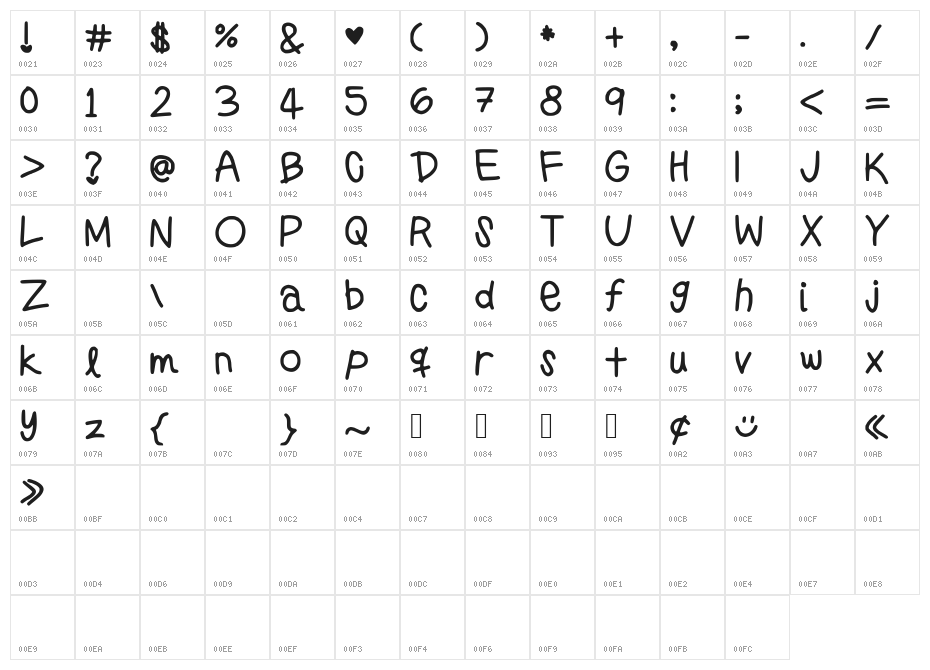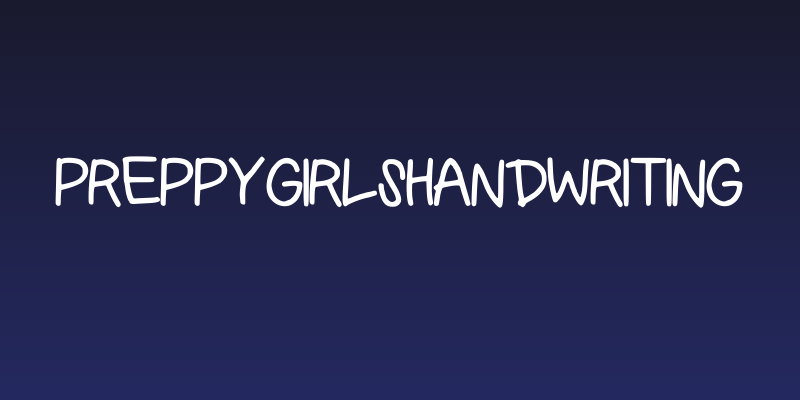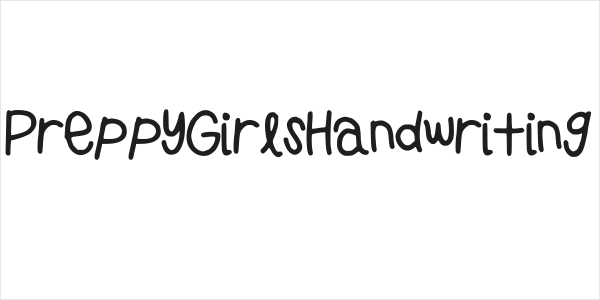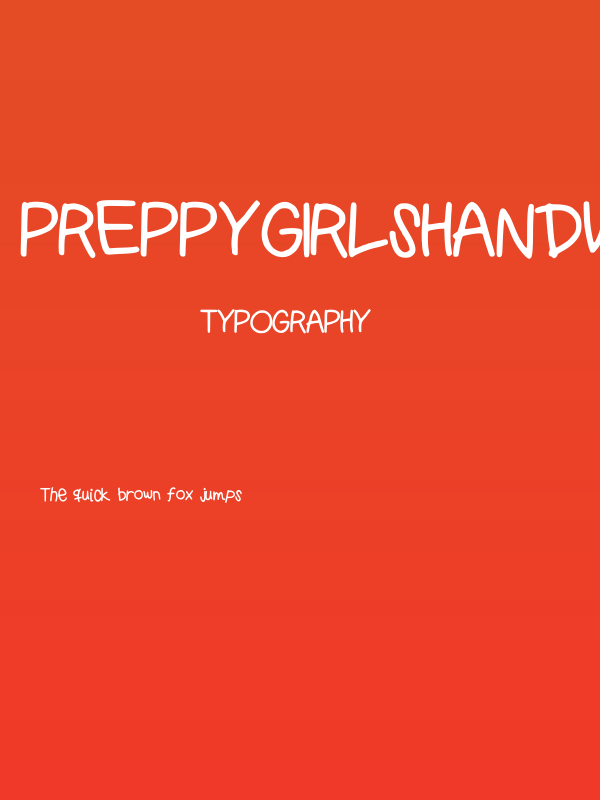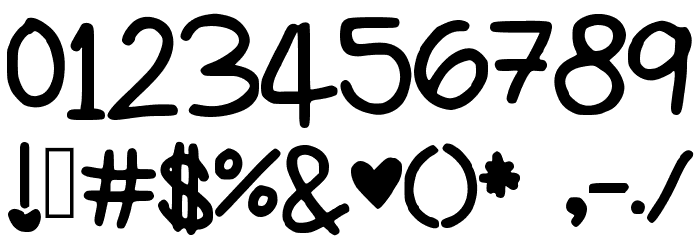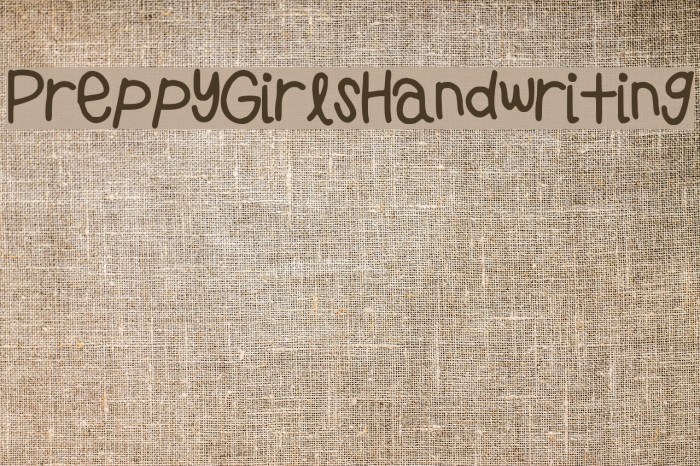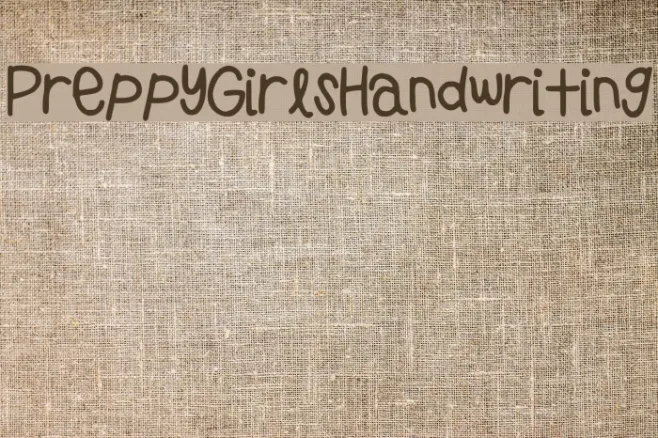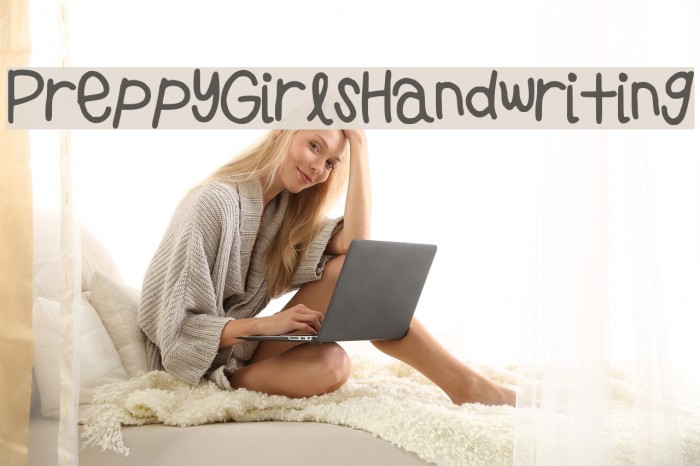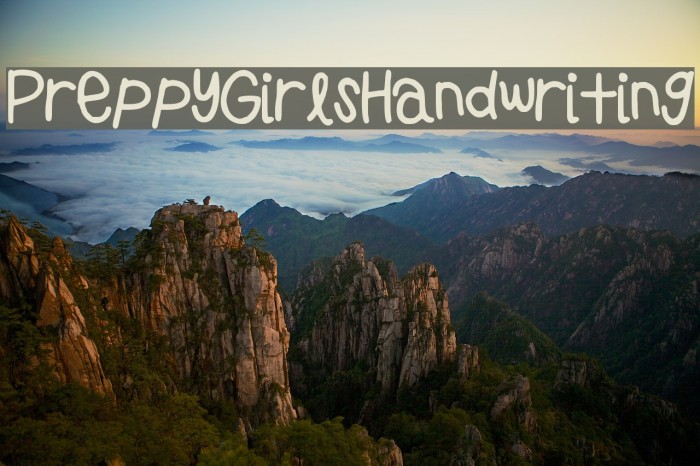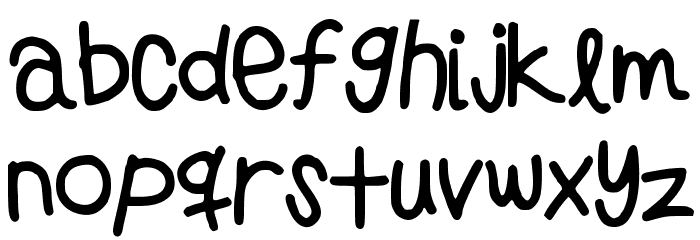
PreppyGirlsHandwriting Font
PreppyGirlsHandwriting Description
This playful and casual font mimics the style of handwriting, characterized by its rounded and slightly irregular letterforms. The uppercase and lowercase letters maintain a consistent flow, giving it a friendly and approachable appearance. The numbers and special characters are crafted with the same whimsical touch, making them easily readable yet distinct. The overall design exudes a youthful and energetic vibe, perfect for projects that require a personal and informal touch.